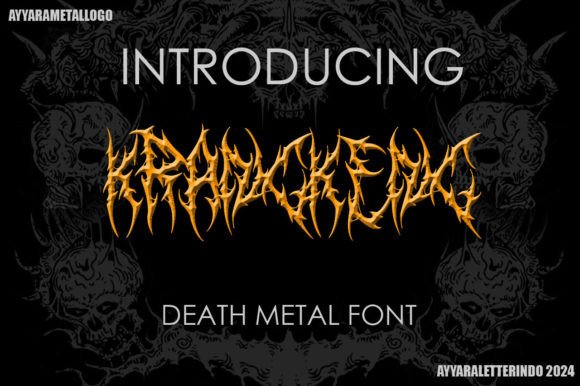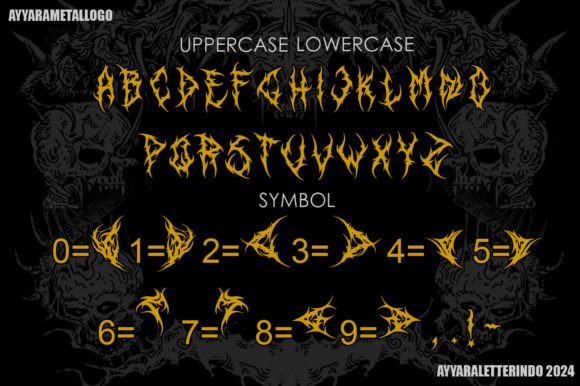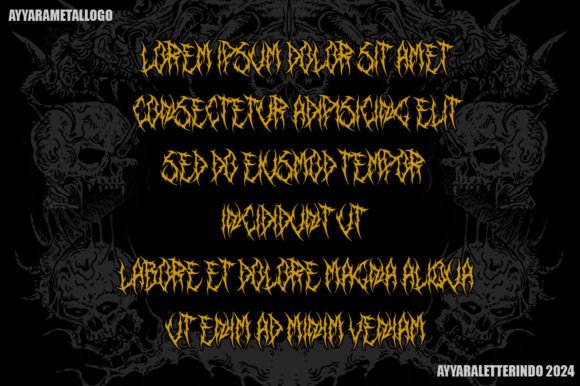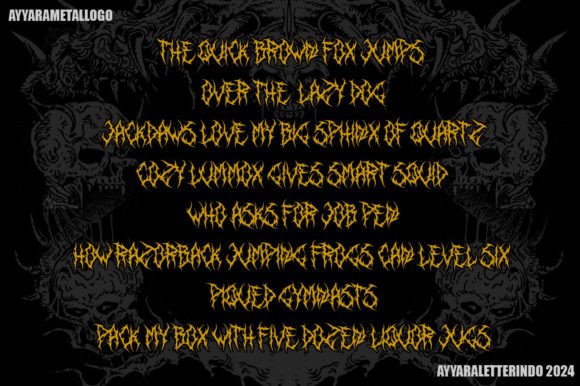
Krangkeng Font: Brutal Blackletter for Death Metal Logos & Branding
About the Krangkeng Font
Unleash your creativity with Krangkeng Font, a versatile font perfect for a wide range of applications. Krangkeng is a death metal font that can be used for logos or branding and your metal band name. You can immediately make your band or brand logo name with the help of this unique black letter font. Combine it with black metal or death metal ornaments and make your cool metal design with ease!
Krangkeng’s aggressive forms are ideal for impactful headlines, logos, and short, punchy text on posters or merchandise related to extreme music, gaming, or similar subcultures. Avoid using it for body text or lengthy paragraphs; its highly stylized characters are difficult to read at smaller sizes.
Its strong, rebellious personality pairs well with stark sans-serif fonts like Montserrat for contrast, or a more subtly geometric typeface like Futura for a controlled, modern aesthetic. A script font, used sparingly, could add a touch of controlled chaos, providing a visual counterpoint to Krangkeng’s angularity.
Consider Krangkeng for brands projecting power, aggression, or a raw, uncompromising image. It’s not suitable for projects requiring elegance, readability, or a softer visual communication style.